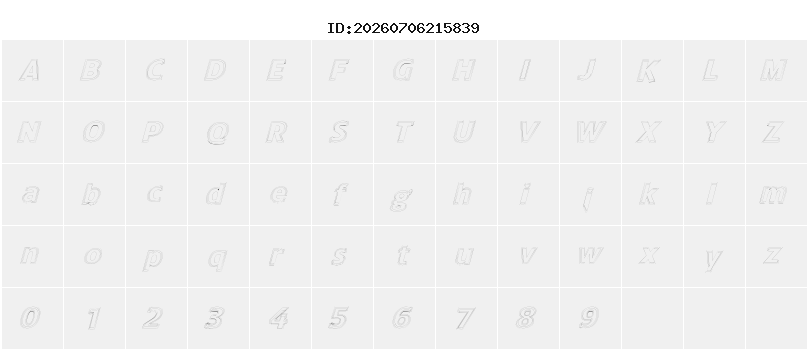
DelineateHollowSlanted Preview
• Font Name: DelineateHollowSlanted
• Font ID: Perry Mason DelineateHollowSlanted
• Full Font Name: DelineateHollowSlanted
• Version: Perry Mason 14 06 01
• PostScript Name: DelineateHollowSlanted
• Character Count: 99
About DelineateHollowSlanted.ttf
DelineateHollowSlanted.ttf is a modern, elegant sans-serif font designed for ultimate readability and visual harmony. Perfect for branding, headlines, web design, and print materials.